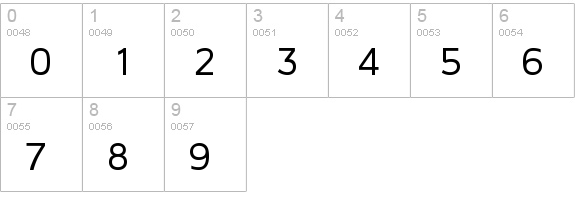
AngroEF-Light Font Details
AngroEF-Light is a refined, elegant variant in the AngroEF typeface family \xE2\x80\x94 well suited to elegant body text, refined sub-headings, and luxury branding.
AngroEF-Light is a sleek and modern font designed to bring a touch of sophistication to your projects. With its clean lines and elegant curves, this font is perfect for adding a touch of refinement to any design. Whether you're working on a branding project, creating invitations, or designing a website, AngroEF-Light is sure to make a statement. The best part? AngroEF-Light is completely free to download at FontsMarket.com, making it accessible to all designers looking to elevate their work with a touch of class. Don't miss out on the opportunity to enhance your projects with this beautiful and versatile font. Download AngroEF-Light today and take your designs to the next level!